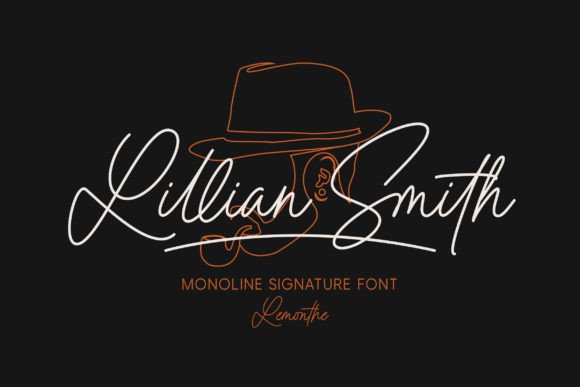
Within our exquisite collection of script fonts, allow me to introduce you to Lillian Smith, an extraordinary font that embodies elegance and sophistication. This monoline signature font, crafted with meticulous attention to detail, exudes a soft and flowing impression that will effortlessly elevate your design projects.
Imagine your creations adorned with Lillian Smith's graceful strokes, enchanting your audience with its captivating charm. Whether you're crafting logos, branding elements, labels, product packaging, or invitation designs, Lillian Smith will infuse your designs with a touch of modern flair or timeless classicism.
With 84 meticulously designed ligatures, Lillian Smith offers endless possibilities for creating striking and harmonious visual compositions. Its PUA encoding ensures effortless access to the font's full spectrum of glyphs and ligatures, empowering you to unleash your creativity without limits.
Step into the realm of sophistication with Lillian Smith, the font that will transform your design endeavors into masterful expressions of artistry. Let your imagination soar and let Lillian Smith guide you toward the pinnacle of design excellence.